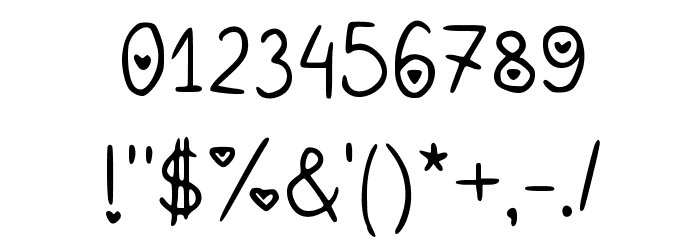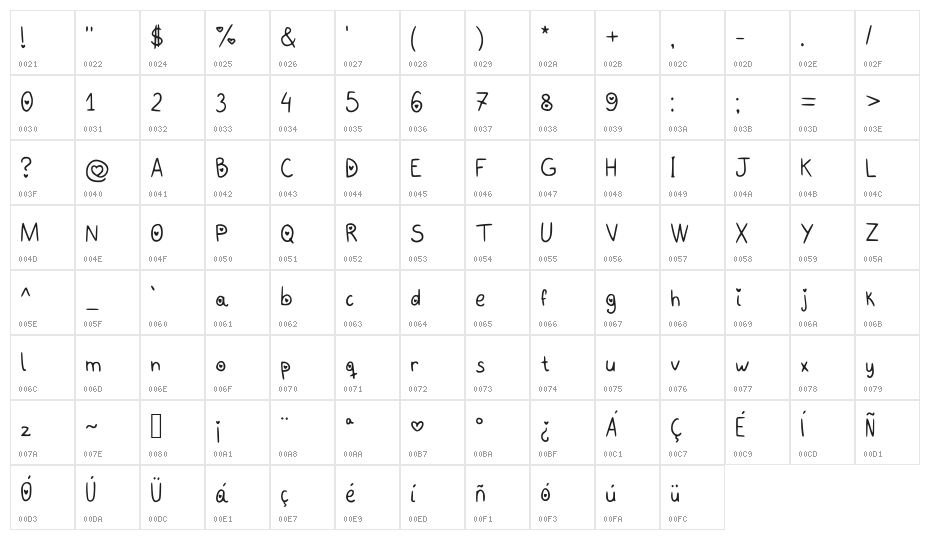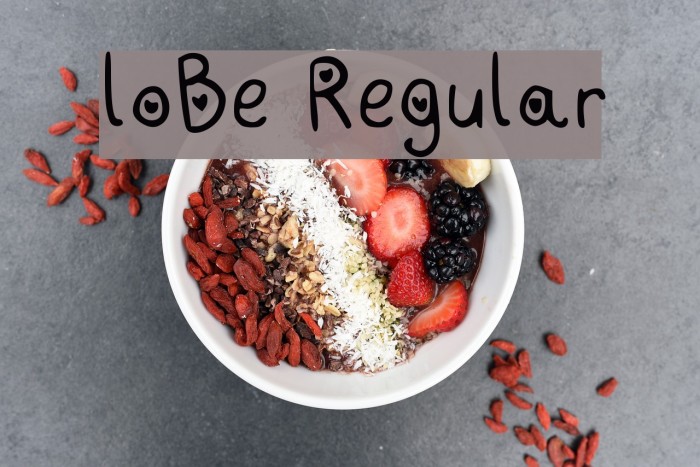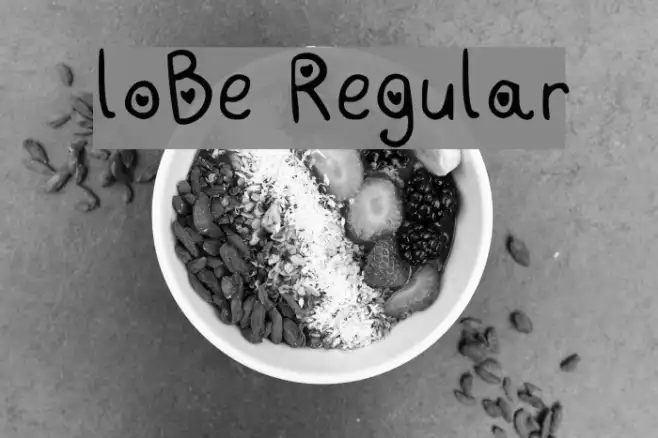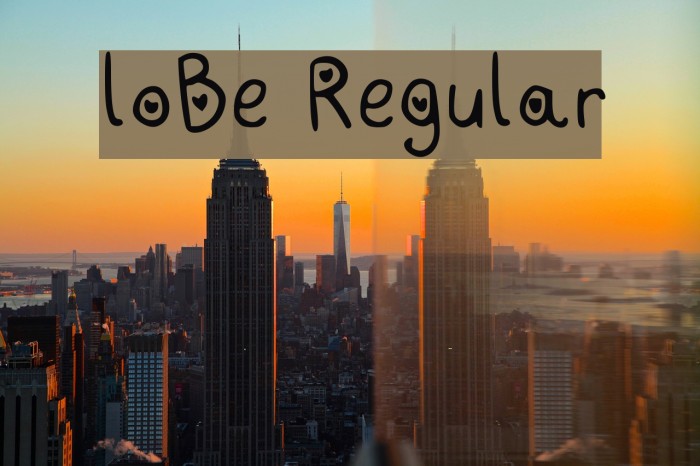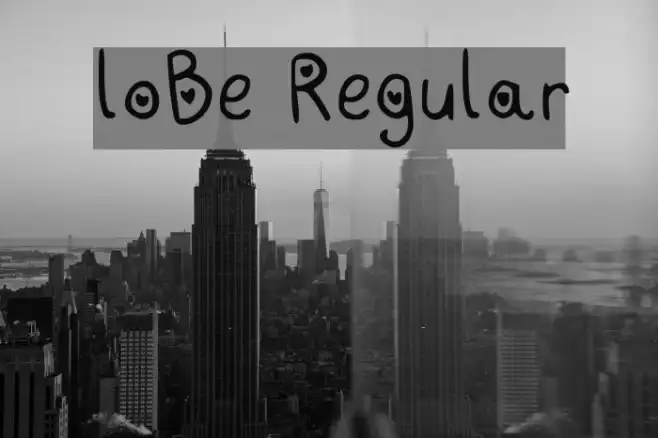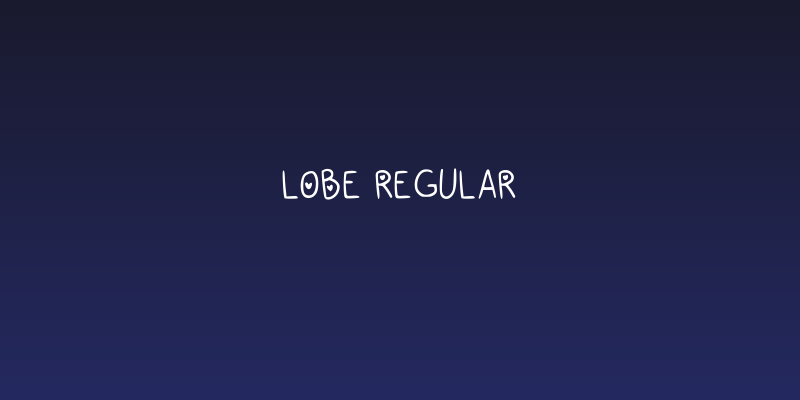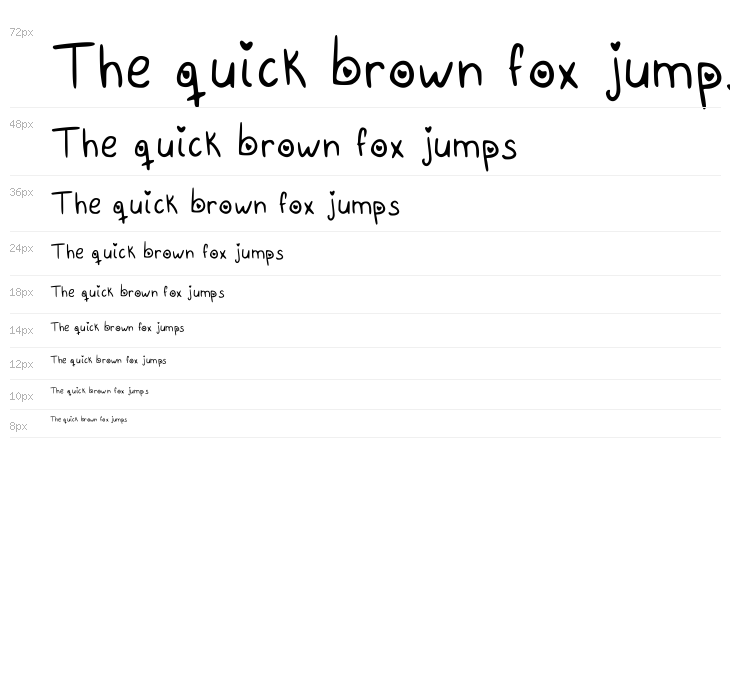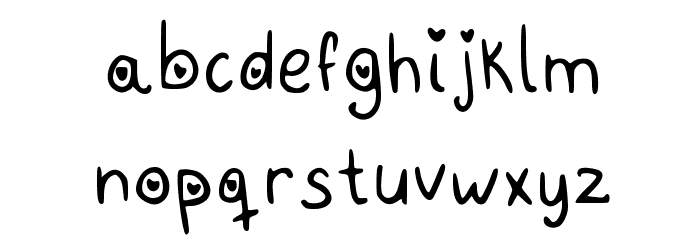
loBe Regular Font
loBe Regular Description
This playful and whimsical font features a handwritten style with a casual and friendly appearance. The characters are slightly irregular, adding a personal touch to the text. The strokes are smooth and rounded, giving it a soft and approachable feel. The font maintains a consistent weight throughout, with moderate spacing between characters, ensuring readability while retaining its unique charm. Its informal style makes it suitable for creative and fun projects.
Overall StyleCasual, Playful
Use CaseHeadlines, Logos, Informal Text
Proposed ProjectsIdeal for children's books, greeting cards, playful branding, and casual invitations.